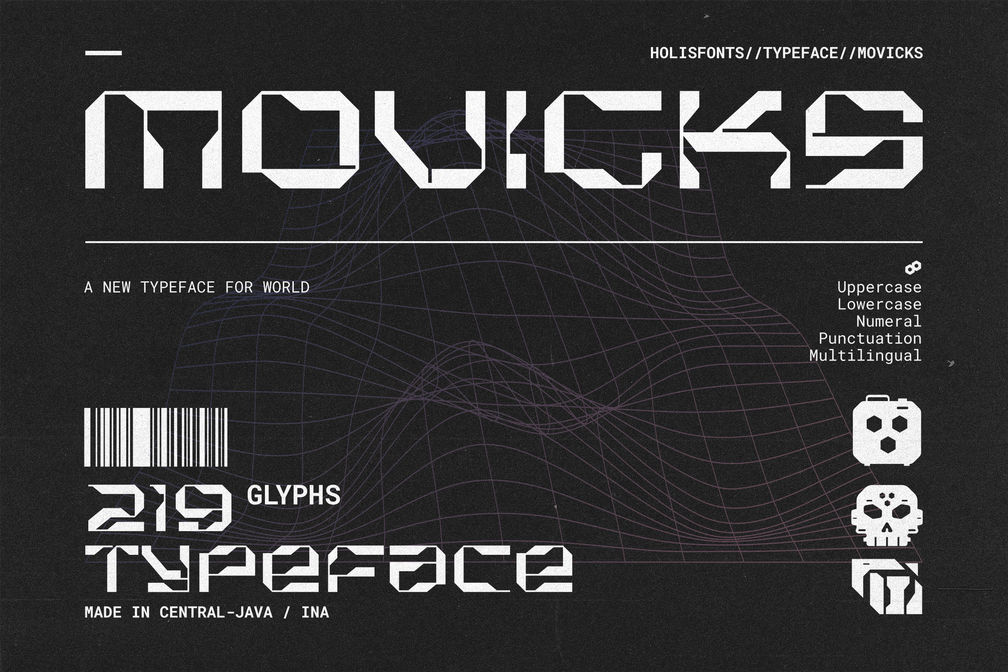
Movicks Sci-Fi Typeface
A modern typeface called “Movicks” inspired by technology for your modern design. This font perfect for logo, social media, content video, poster design, headline, movies poster, product branding, etc.